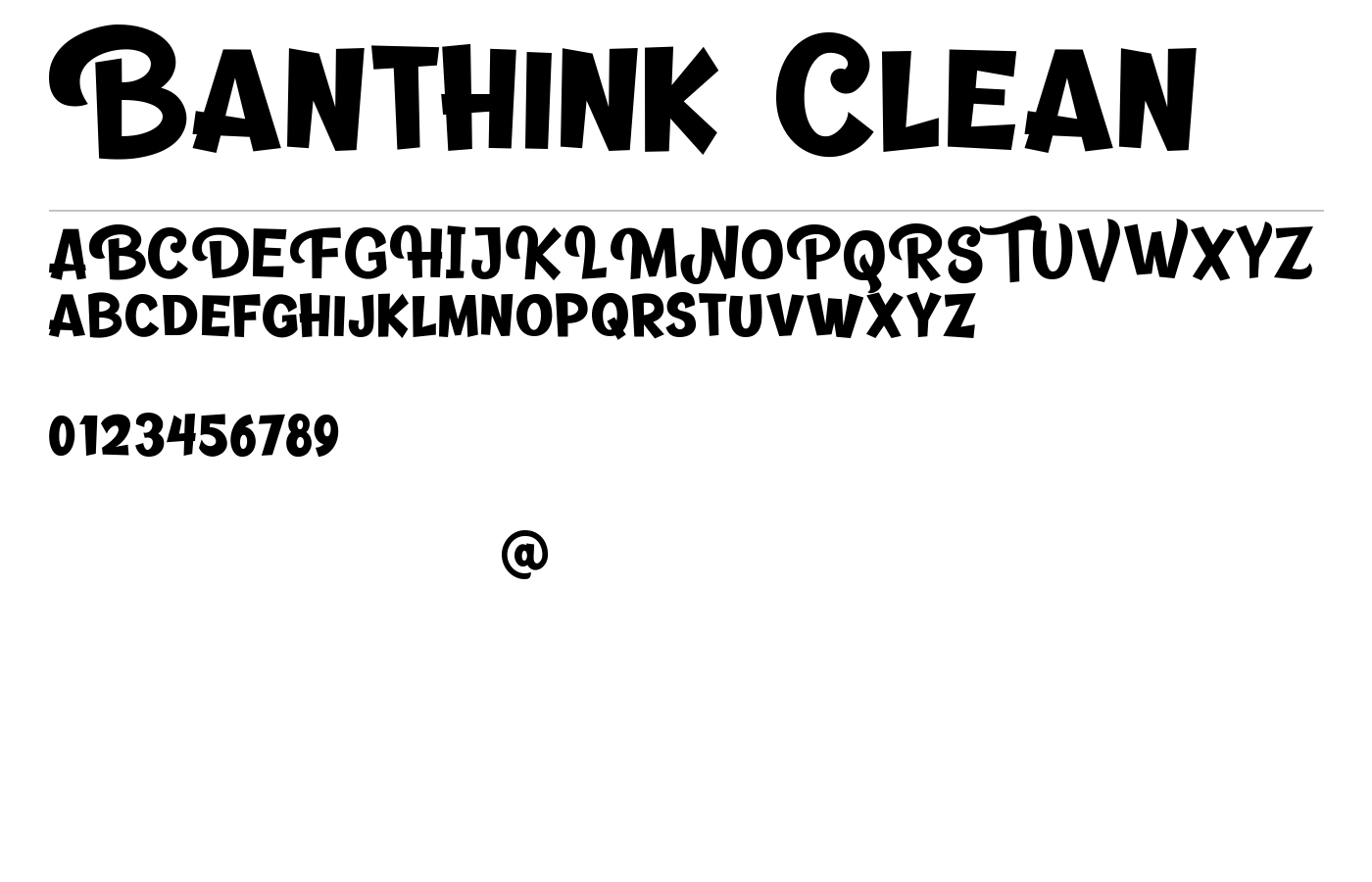
Banthink is a playful and bold display font featuring a lively, hand-drawn style with chunky, irregular shapes and quirky details like curled strokes on some uppercase letters. Its chunky weight, uneven letter widths, and whimsical character make it perfect for fun branding, children’s projects, or eye-catching headlines that need a friendly and energetic vibe. This font works best in creative and informal settings where a unique, approachable personality is desired.
Banthink Font
About Banthink Font
| Font family | Banthink Font |
| Designer | Lettersiro 2018 |